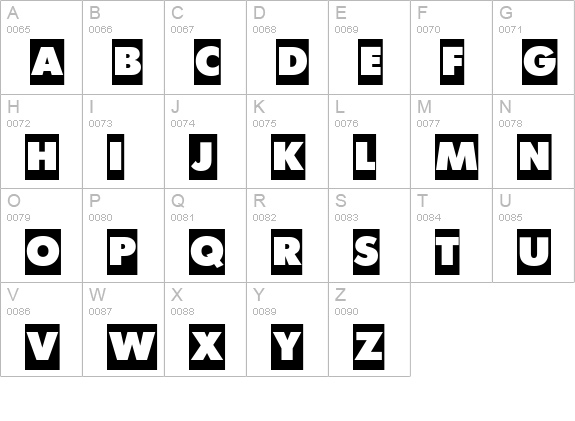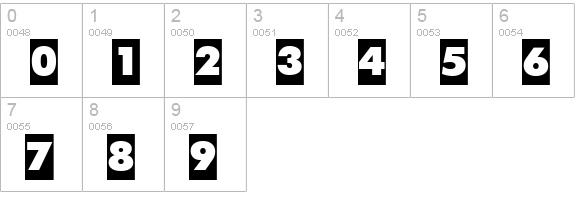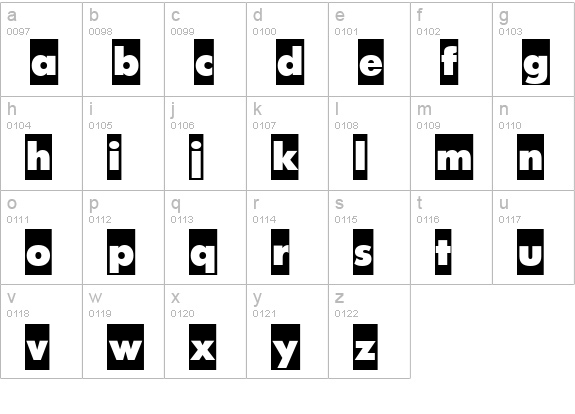
FuturisXCameoCTT Font Details
FuturisXCameoCTT font is a modern and sleek typeface that exudes sophistication and elegance. Its clean lines and distinctive letterforms make it perfect for a wide range of design projects, from branding to editorial design. The font strikes the perfect balance between futuristic and classic, making it versatile and timeless. What sets FuturisXCameoCTT font apart is not only its aesthetic appeal but also its versatility. Whether you're designing a logo, creating a poster, or crafting a website, this font will elevate your work and give it a polished and professional look. One of the best things about FuturisXCameoCTT font is that it is completely free to download at FontsMarket.com. This means that you can start using this stunning typeface in your projects right away, without having to worry about any licensing fees or restrictions. Don't miss out on this fantastic opportunity to enhance your designs with the FuturisXCameoCTT font!